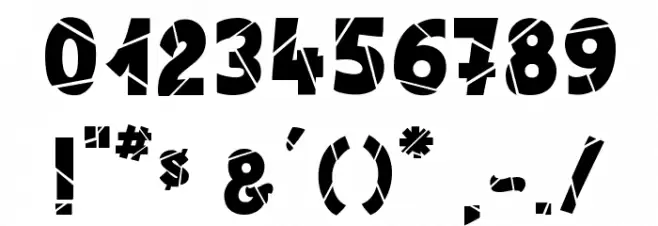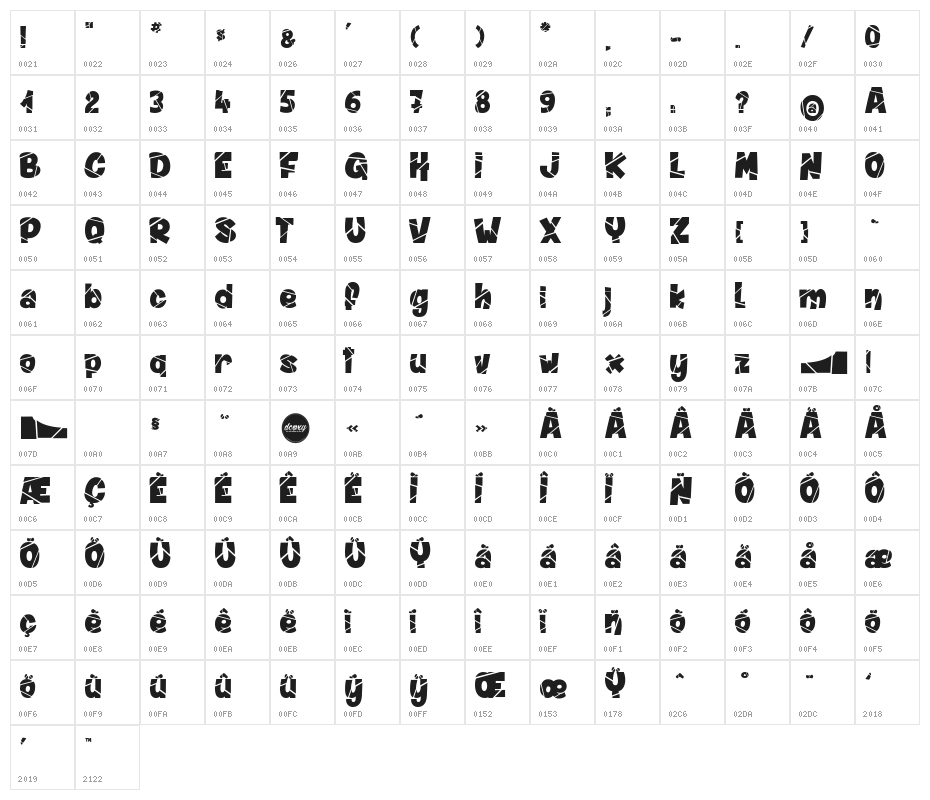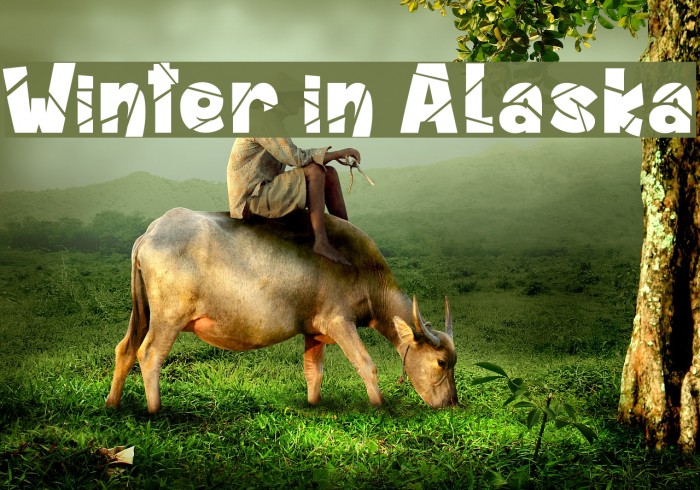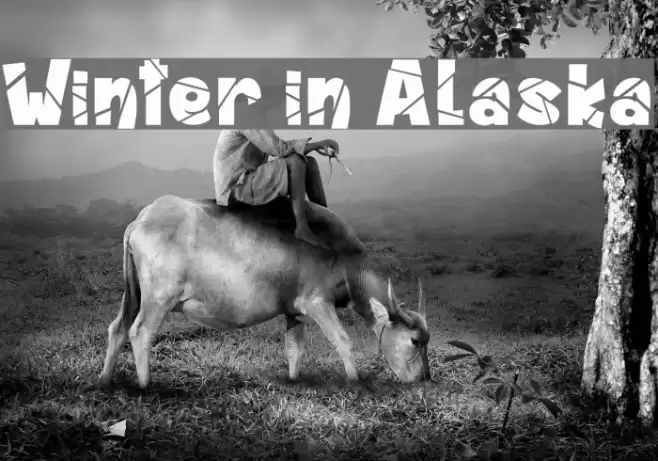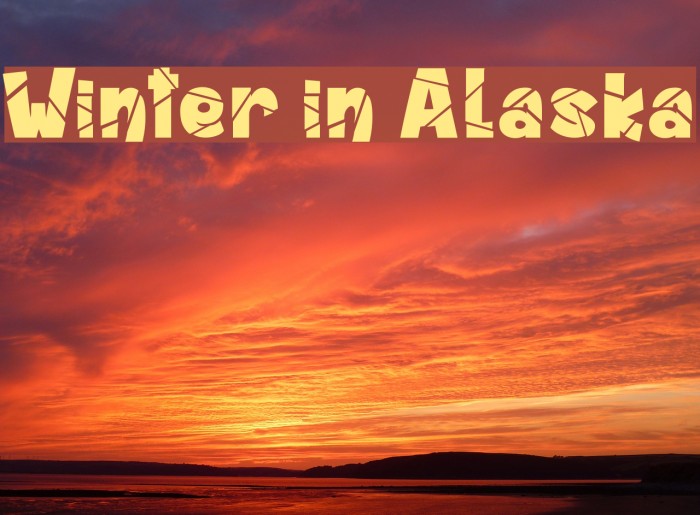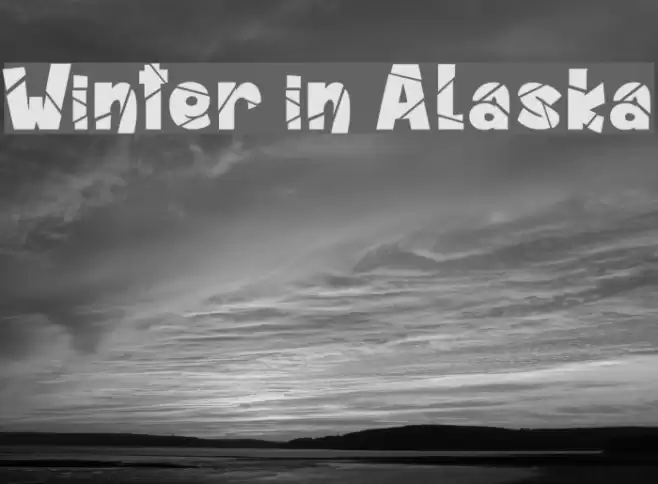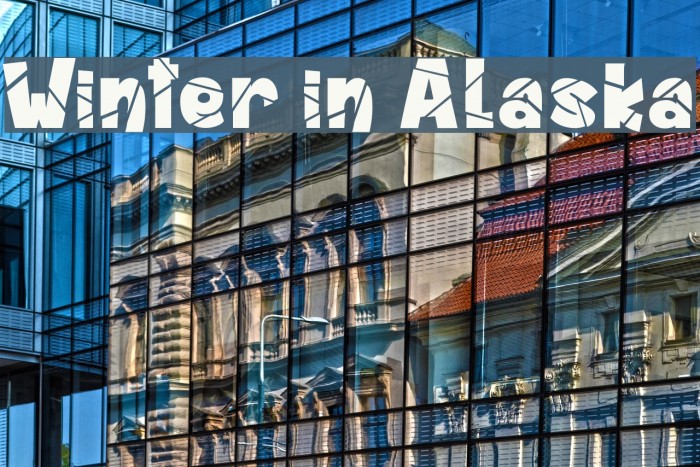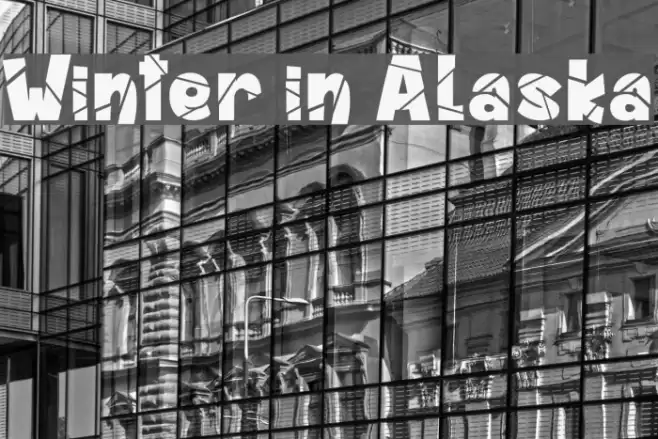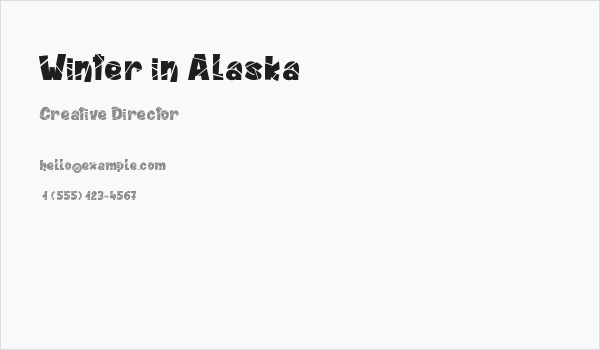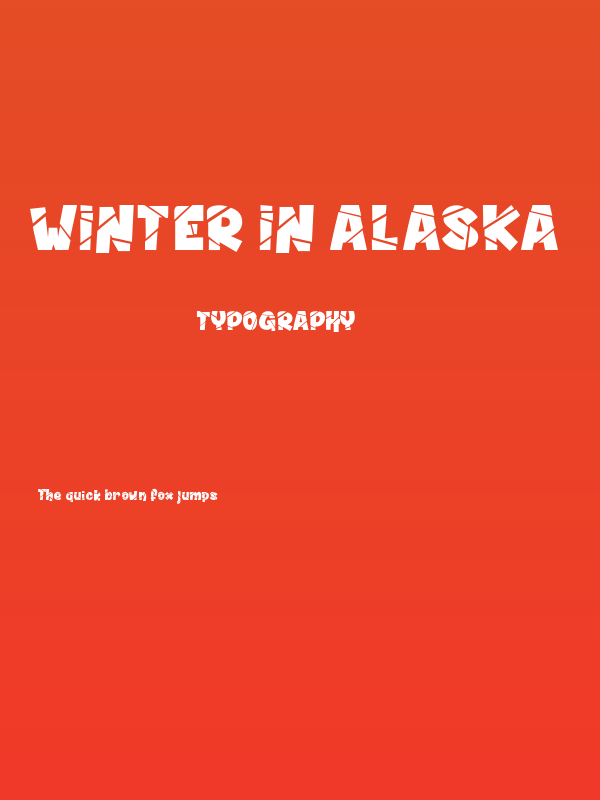
Winter in Alaska Font
Winter in Alaska Description
This font features a bold and striking design with a unique, fragmented appearance. Each character is composed of solid black shapes interspersed with white spaces, creating a dynamic and visually engaging pattern. The uppercase and lowercase letters maintain a consistent style, with angular cuts and geometric forms that give the font a modern and edgy look. The numbers and special characters follow the same design principles, ensuring uniformity across all elements. This font's distinctive style makes it ideal for projects that require a strong visual impact.
| Proposed Projects | Ideal for branding, poster design, album covers, and any project needing a bold visual statement. |